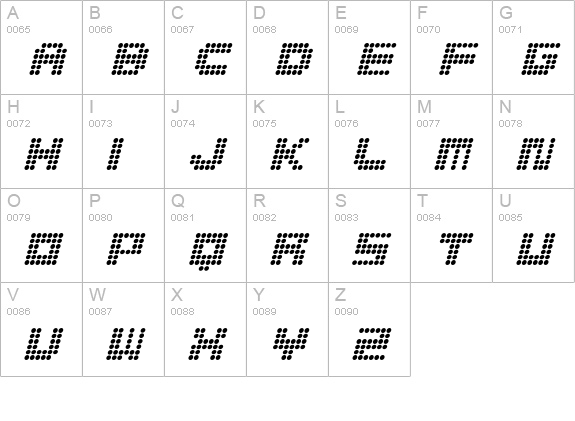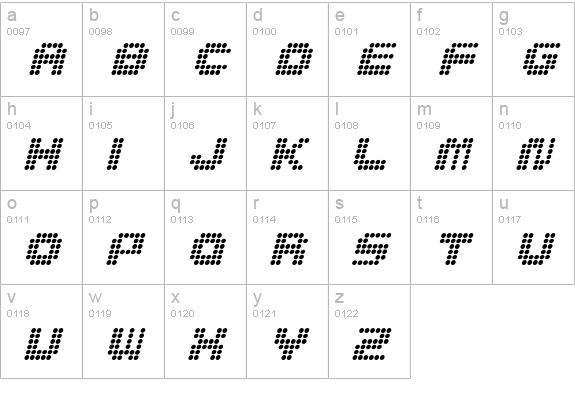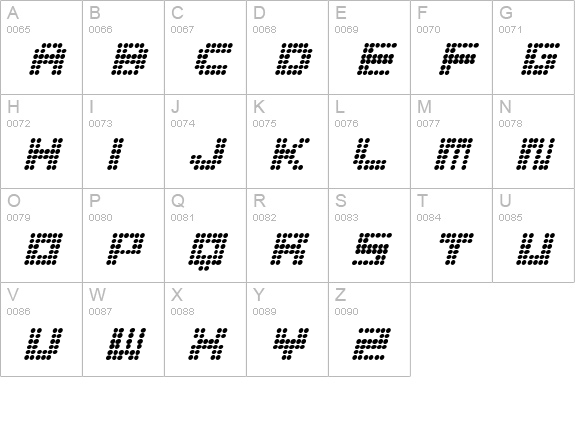
MedLed-Italic is a distinctive, italic variant in the MedLed typeface family \xE2\x80\x94 well suited to design and typography projects.
MedLed-Italic is a stunning and elegant font that exudes sophistication and style. With its sleek and modern design, this typeface is perfect for adding a touch of class to any project. The italic styling of MedLed-Italic adds a sense of flair and creativity, making it an ideal choice for headings, quotes, and other prominent text elements. One of the best things about MedLed-Italic is that it is completely free to download. You can easily access this beautiful font at FontsMarket.com, where you can enhance your designs with its unique and eye-catching look. Whether you're working on a website, a poster, a logo, or any other creative project, MedLed-Italic is sure to make a lasting impression. Download it today and elevate your designs with this versatile and stylish font.